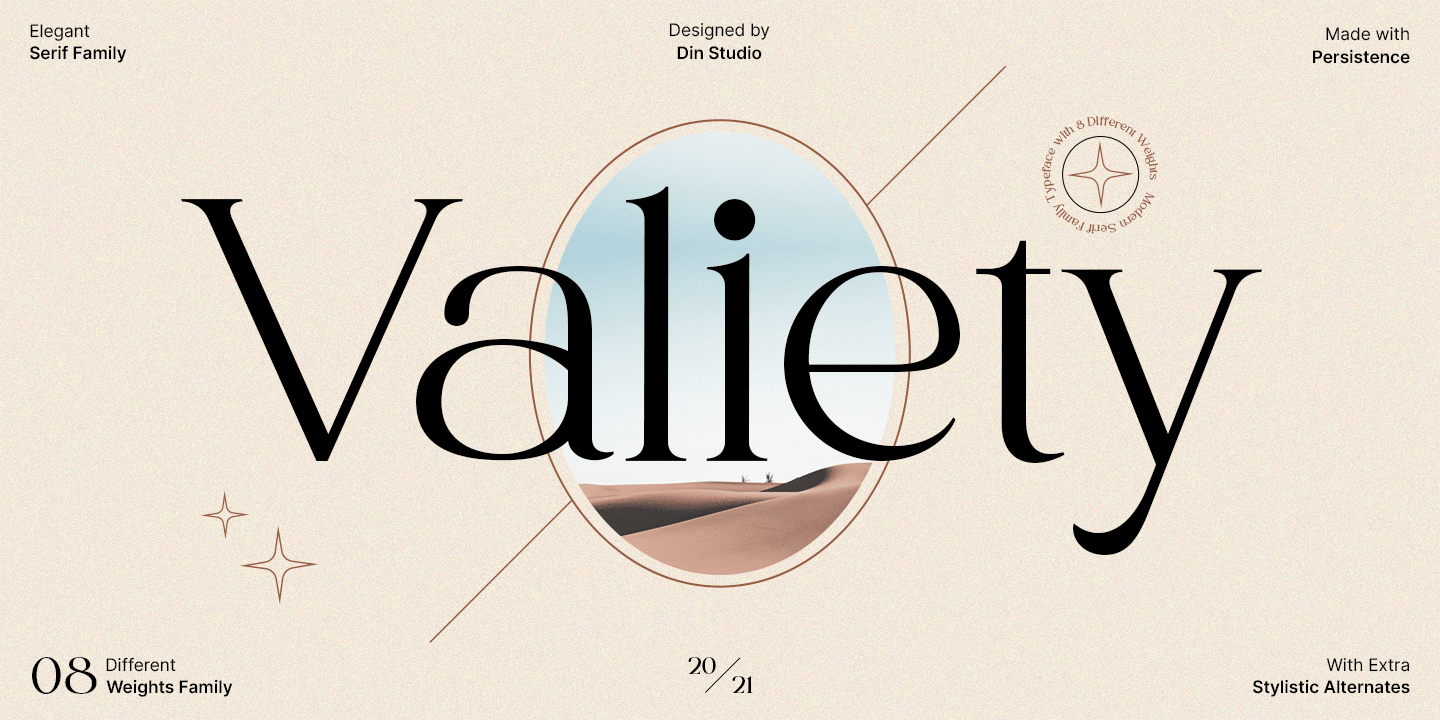
The Valiety Font is incredibly versatile, making it an exceptional choice for a wide range of design projects that demand a blend of elegance, versatility, and often a subtle, modern sophistication. Imagine it gracing the branding for a contemporary fashion boutique, adding a refined touch to luxury product packaging, or creating sophisticated headers for lifestyle blogs. It's also perfect for crafting unique logos that convey a sense of modern artistry, designing elegant invitations for upscale events, or enhancing the visual appeal of editorial layouts that seek a clean yet distinctive flair. Its often balanced proportions, clear forms, and subtle stylistic nuances make it ideal for anything that needs to communicate timeless beauty, understated quality, and a polished contemporary feel.
What makes the Valiety Font so exciting is its ability to effortlessly bridge the gap between classic appeal and modern sensibility. It's not just a typeface; it’s a design chameleon that offers both unwavering reliability and refined aesthetic pleasure. Its meticulously crafted letterforms, often featuring harmonious curves and well-defined terminals, contribute to superb legibility, making your content appear both intelligent and inviting. In a world of rapidly changing design trends, this font stands out by offering a timeless charm, ensuring your message is not only seen but truly appreciated for its aesthetic value and lasting relevance.
The Valiety Font family typically includes a comprehensive range of weights and styles to provide maximum flexibility for designers. While specific variations can differ, you can often expect to find light, regular, medium, and bold versions, along with corresponding italic styles. This extensive array of options allows for sophisticated typographic hierarchies and ensures the font can adapt seamlessly to various design needs, from subtle body text to prominent display headlines, offering unparalleled versatility for both print and digital applications.